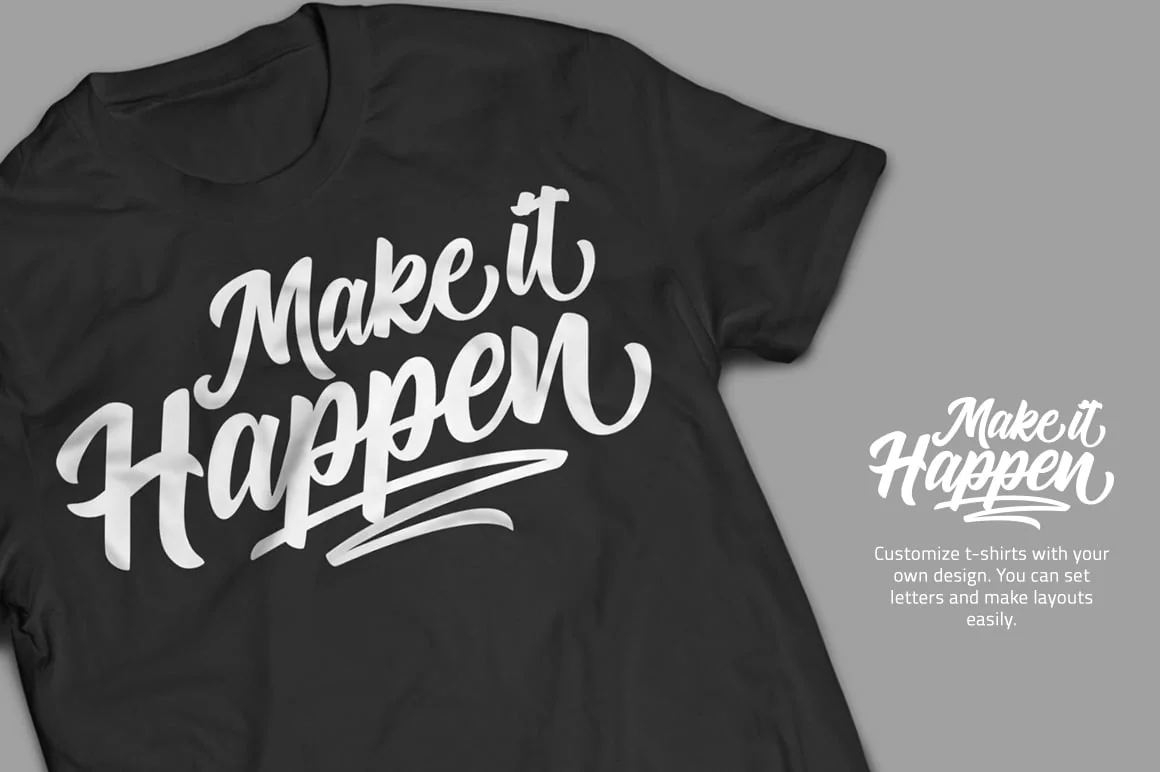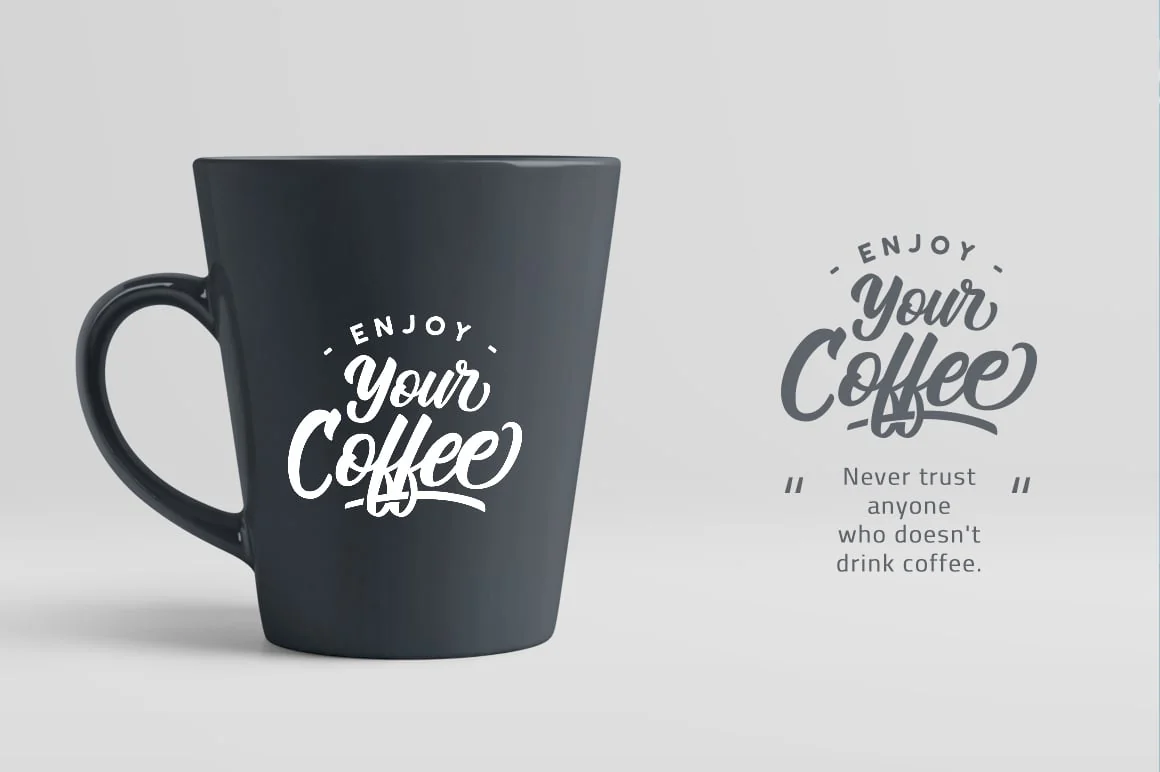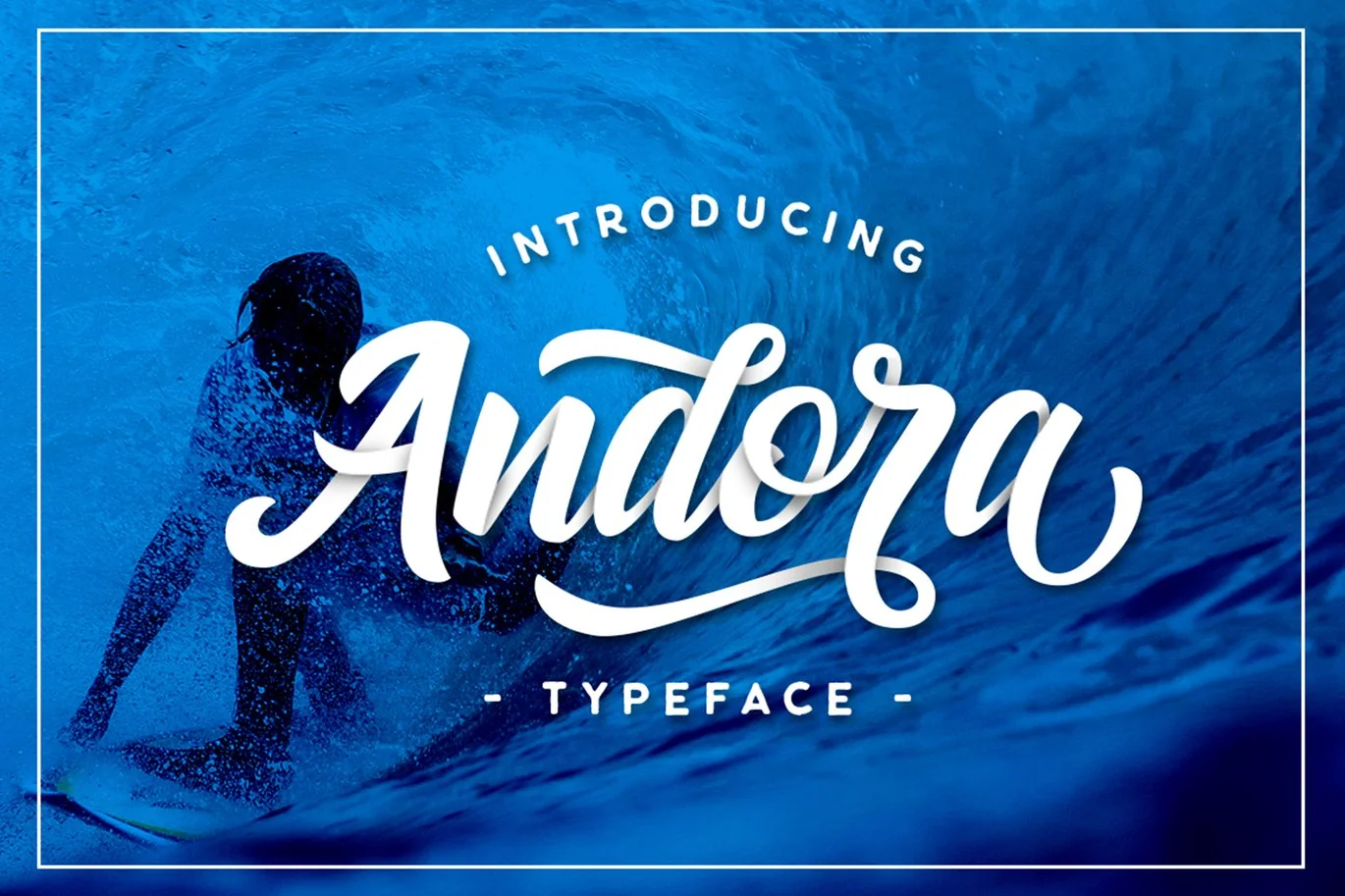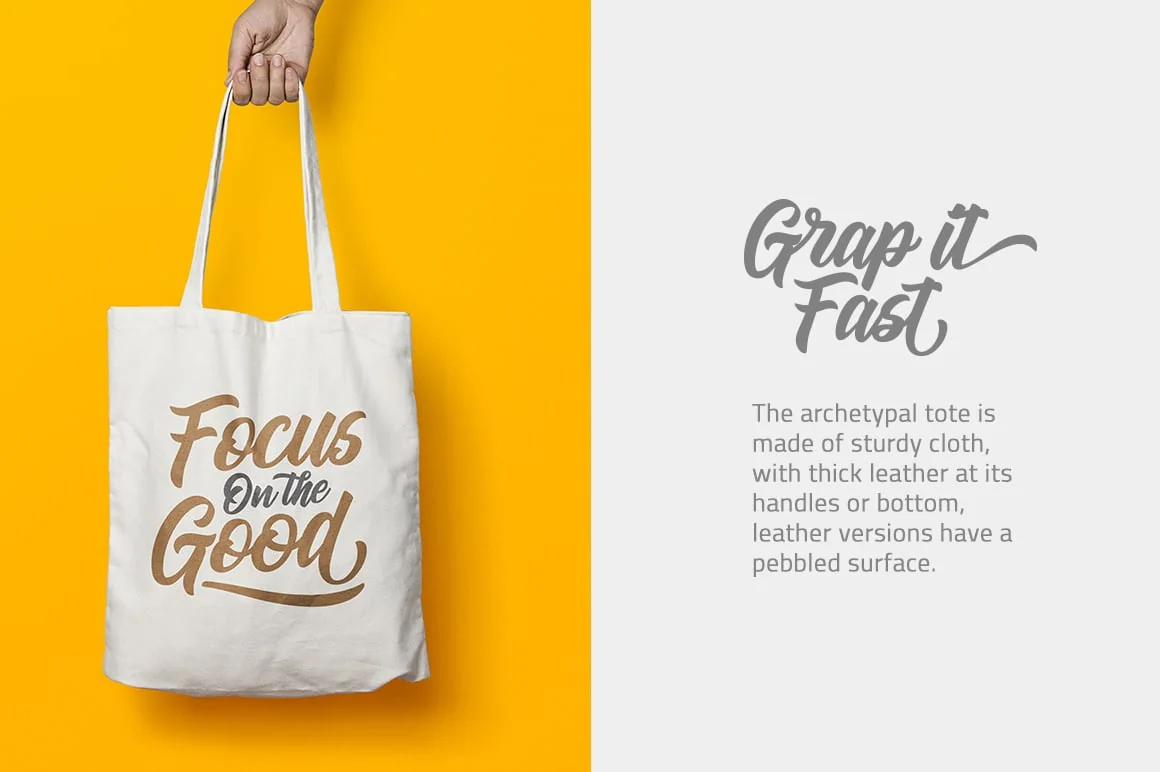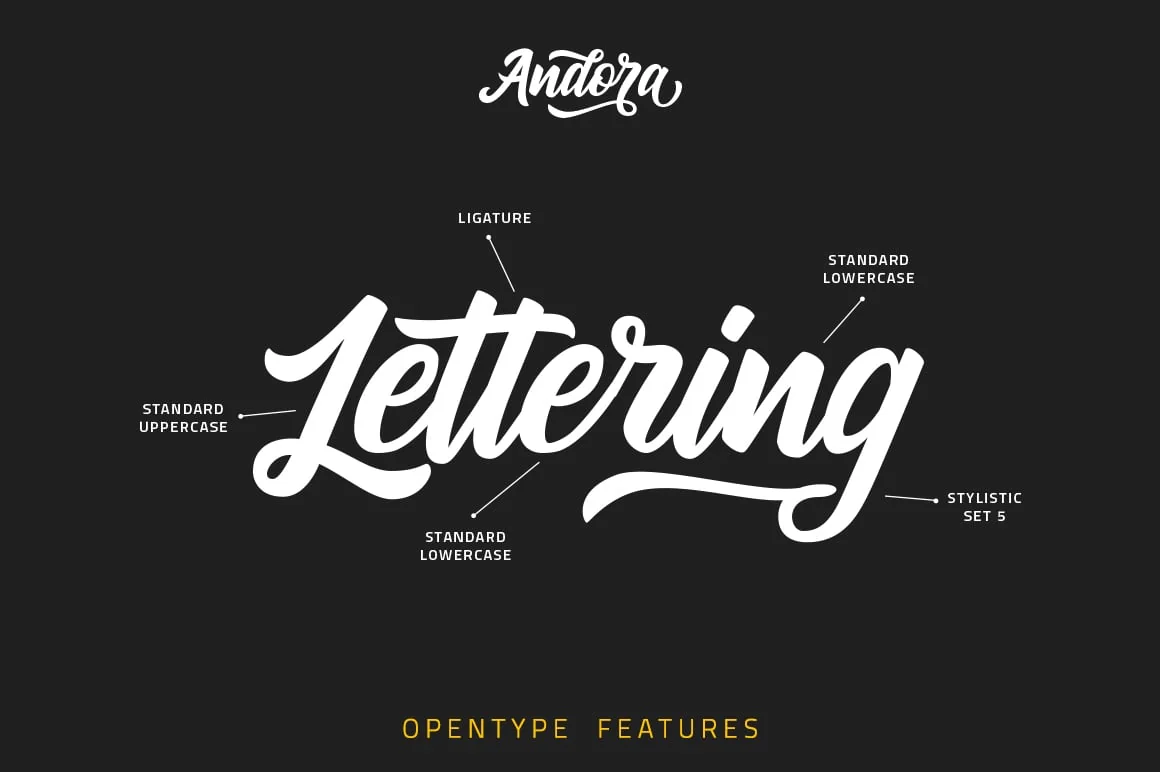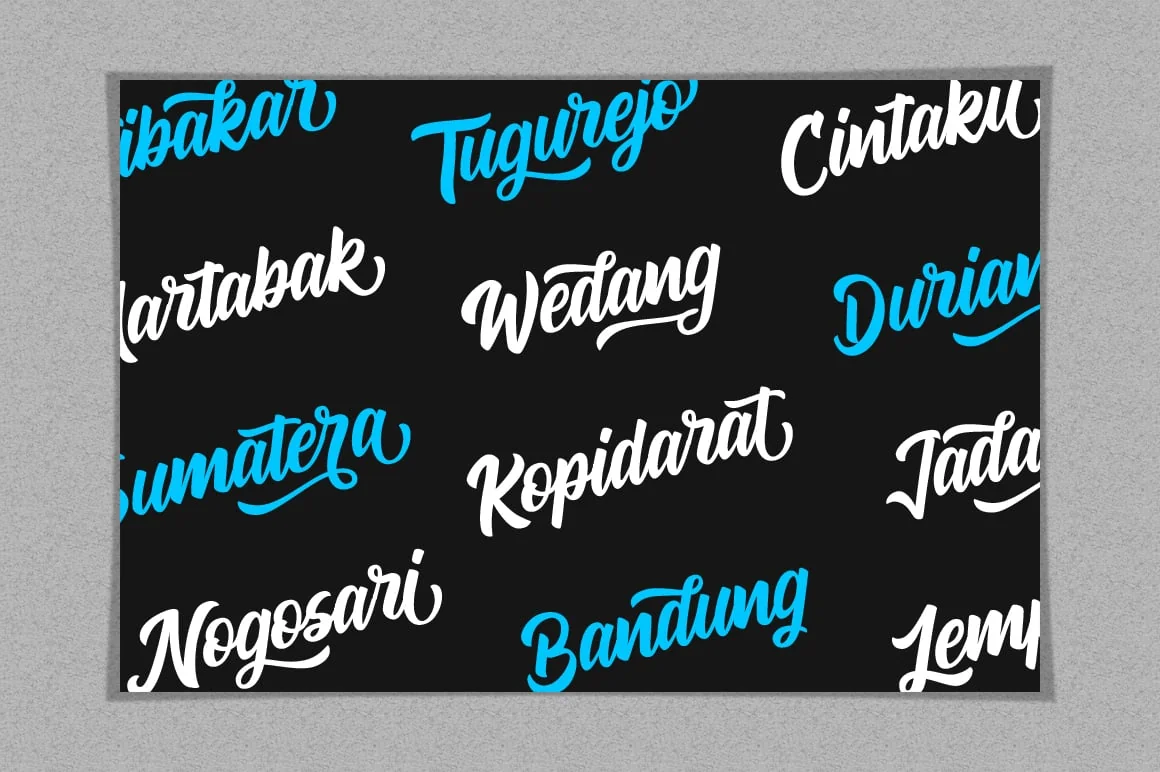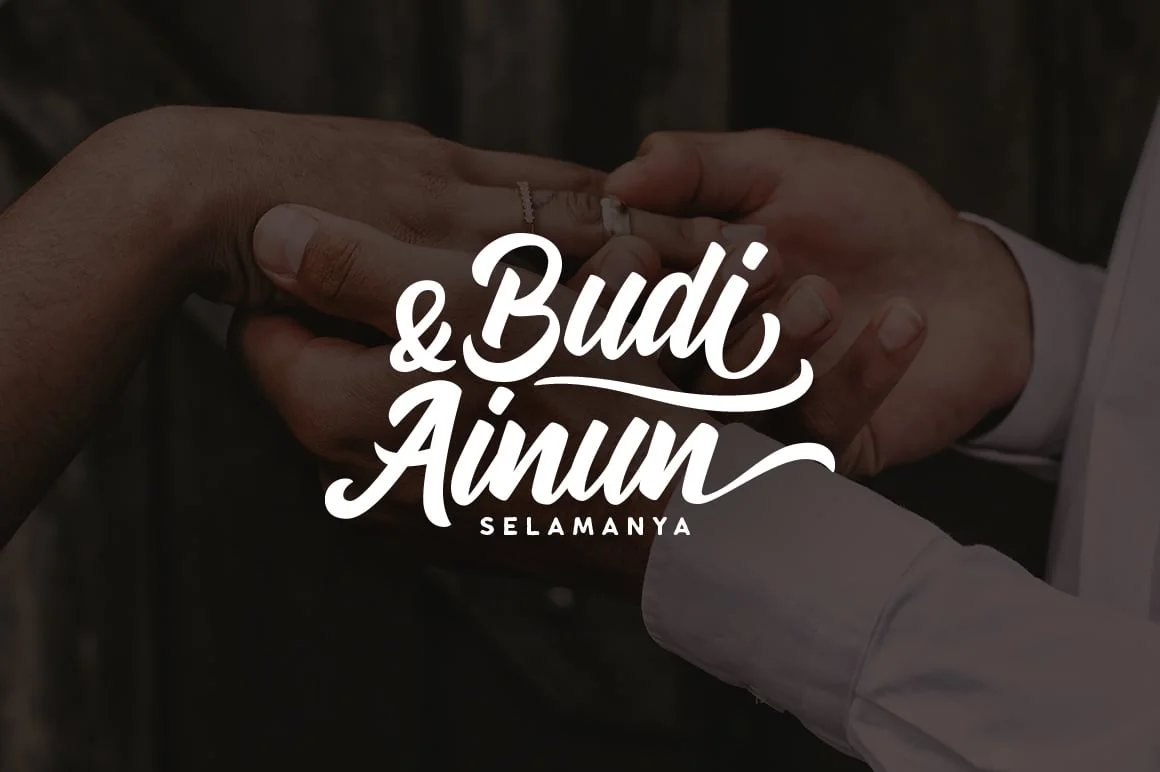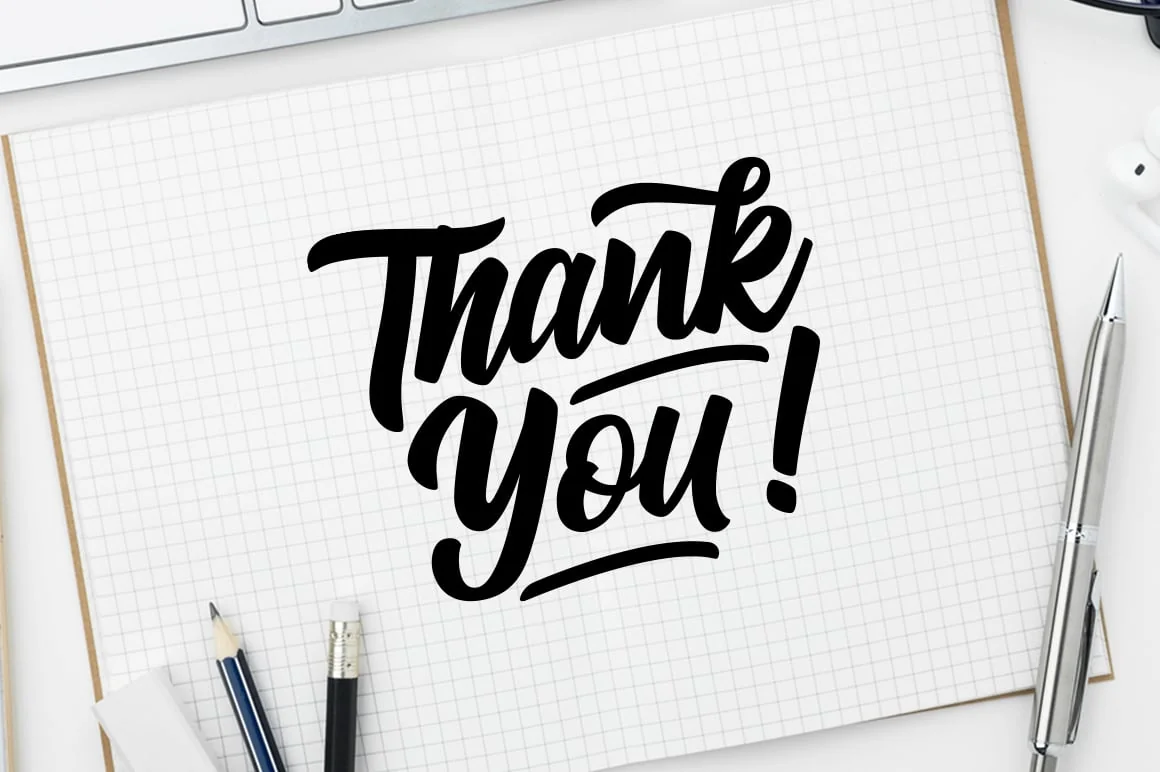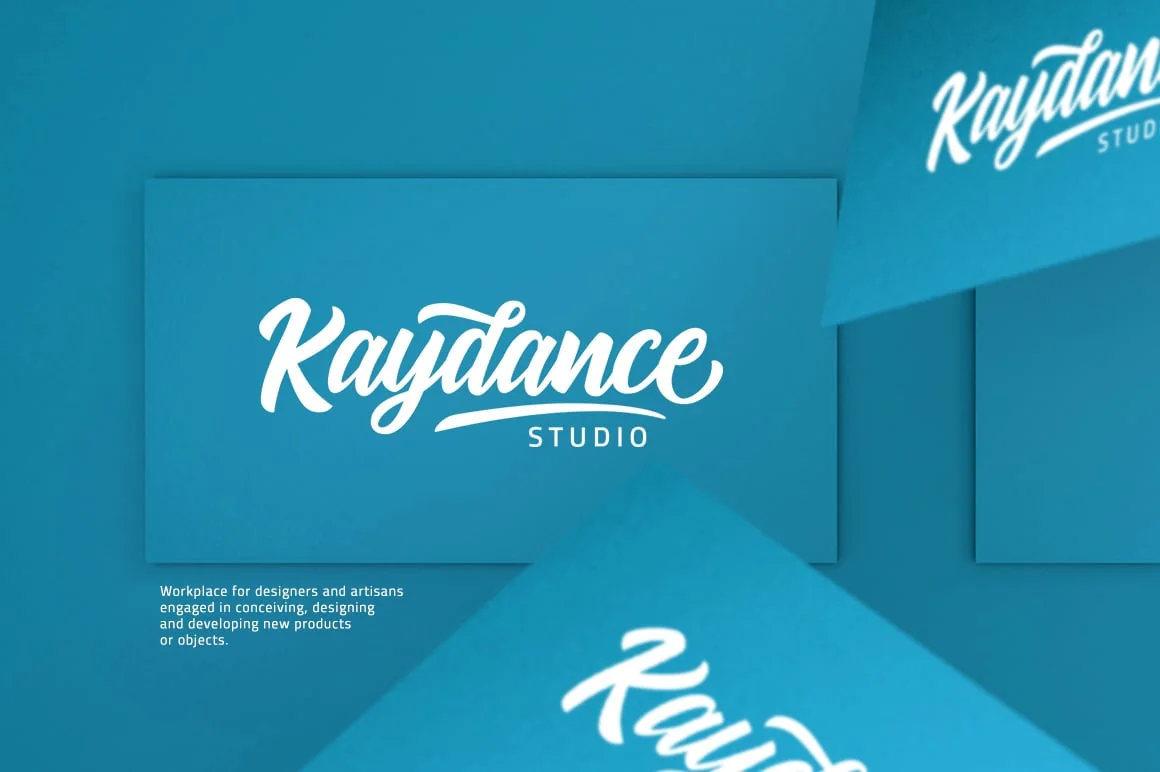
Andora Typeface
Introducing Andora Typeface! Hand lettered font with clean style and casual. Andora is perfect for branding projects, product packaging, tshirt design or simply as a stylish text overlay to any background image.
Andora Font equipped with :
- Uppercase, lowercase, numeral, punctuation & Symbol.
- Stylistic alternates.
- Stylistic Set 1 – Stylistic Set 5.
- Swash.
- Ligatures.
- Andora – A hand lettered script font containing upper & lowercase characters, numerals and a large range of punctuation.
- Andora Swash – A set of 26 hand drawn swashes, the perfect finishing touch to underline your Andora text. Simply install this as a separate font, select it from your font menu and type any A-Z character to create a swash.